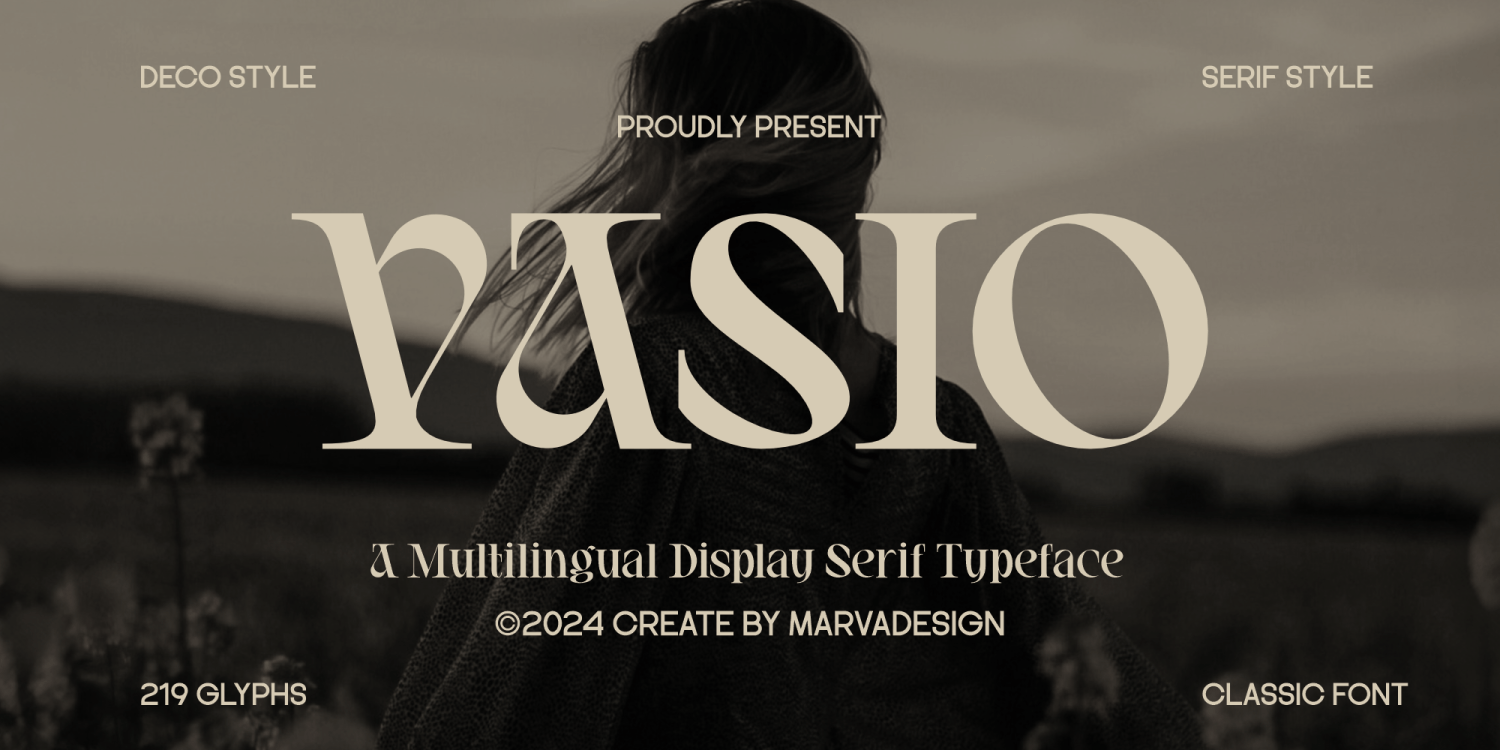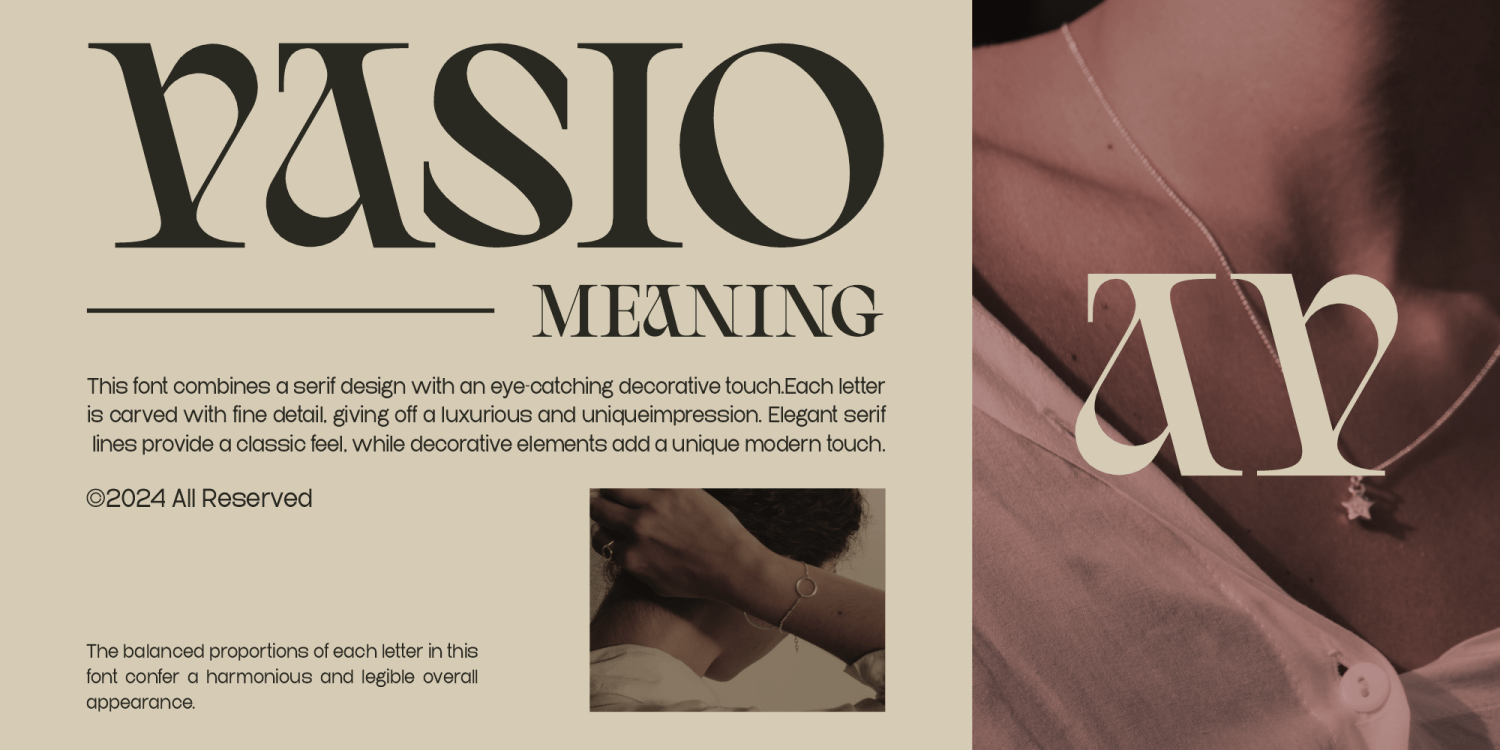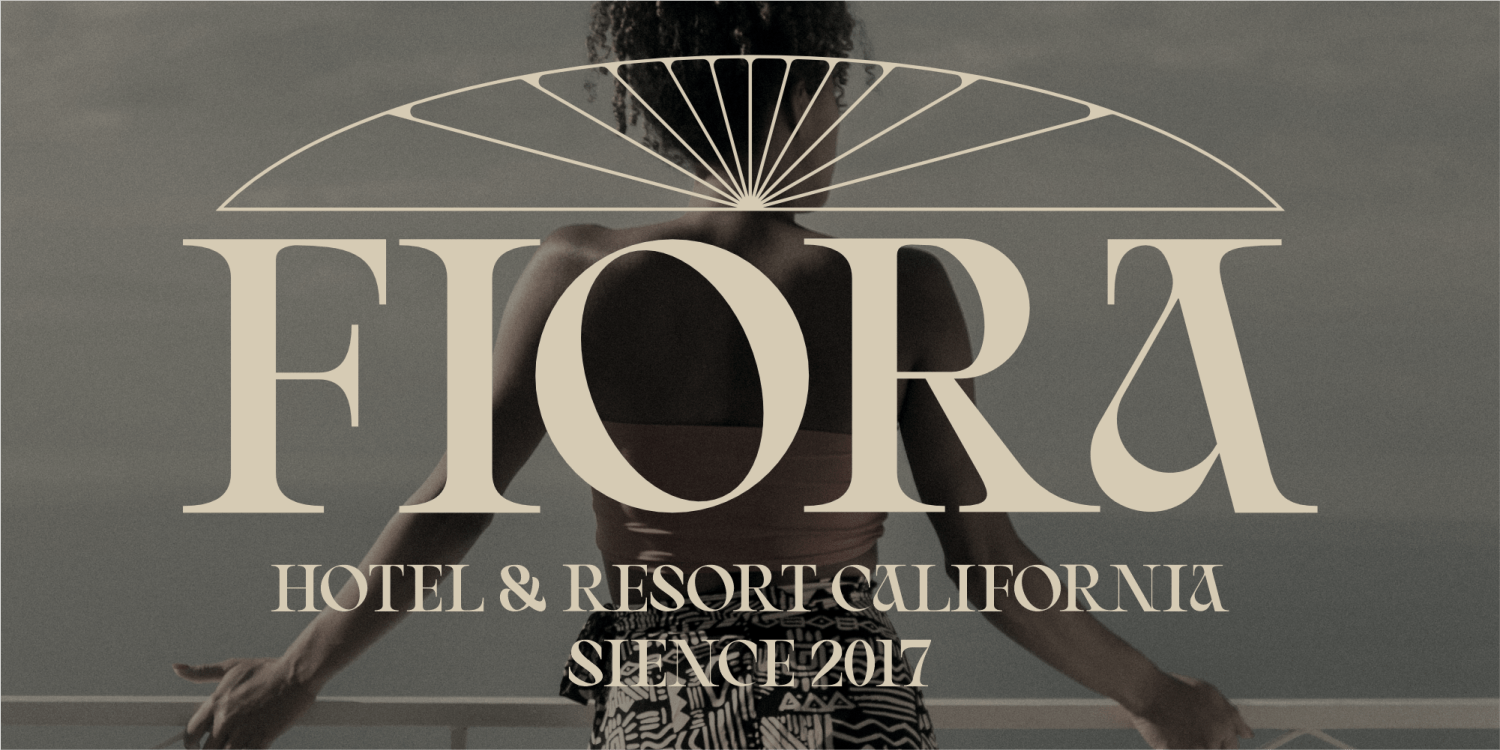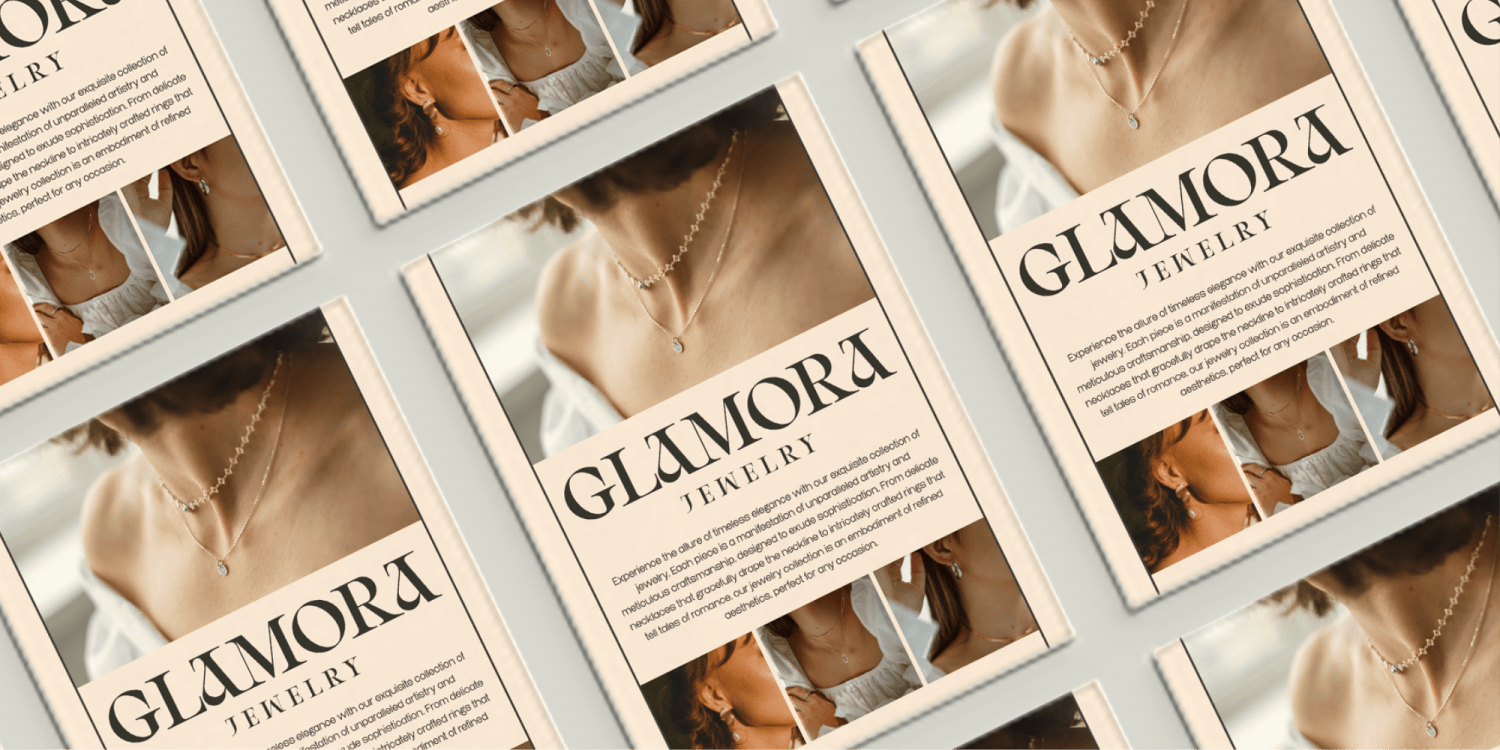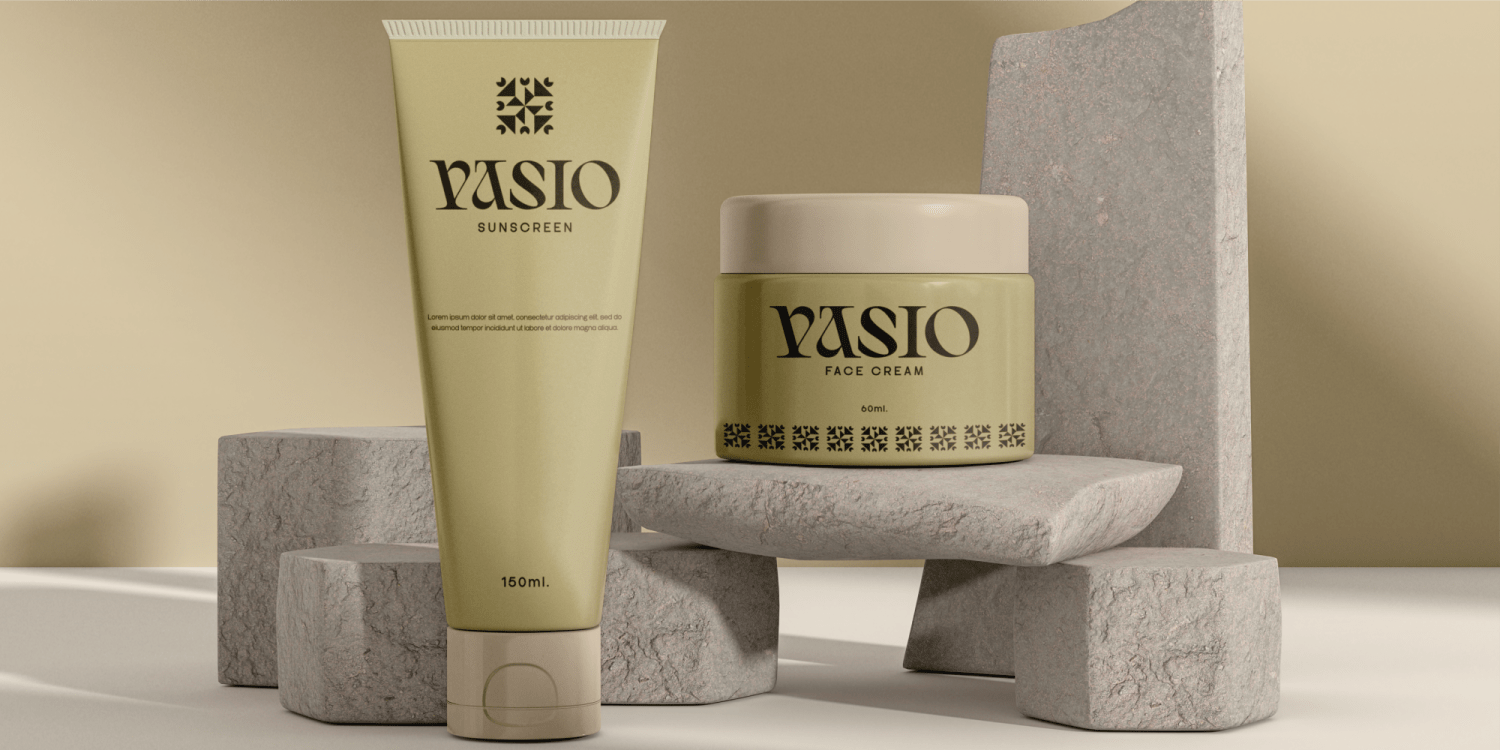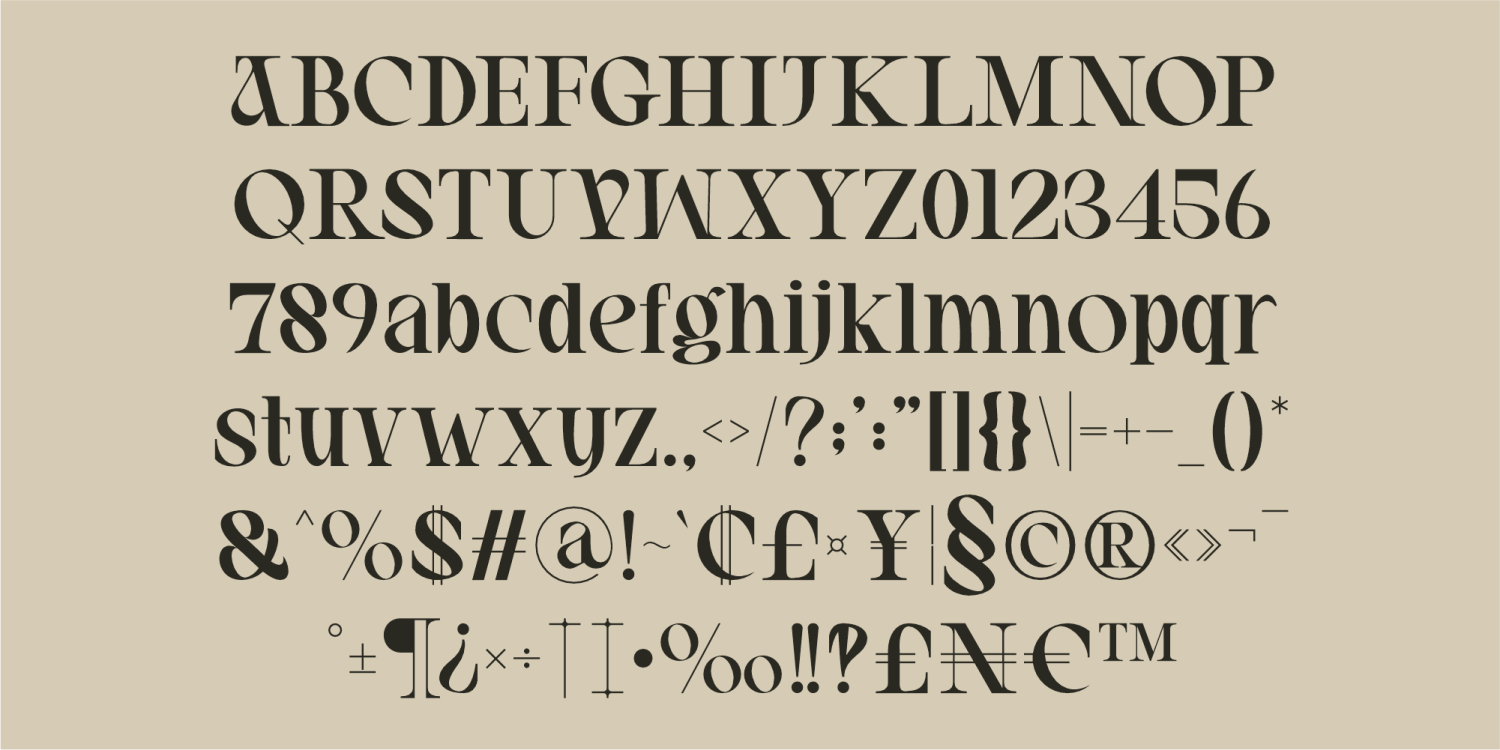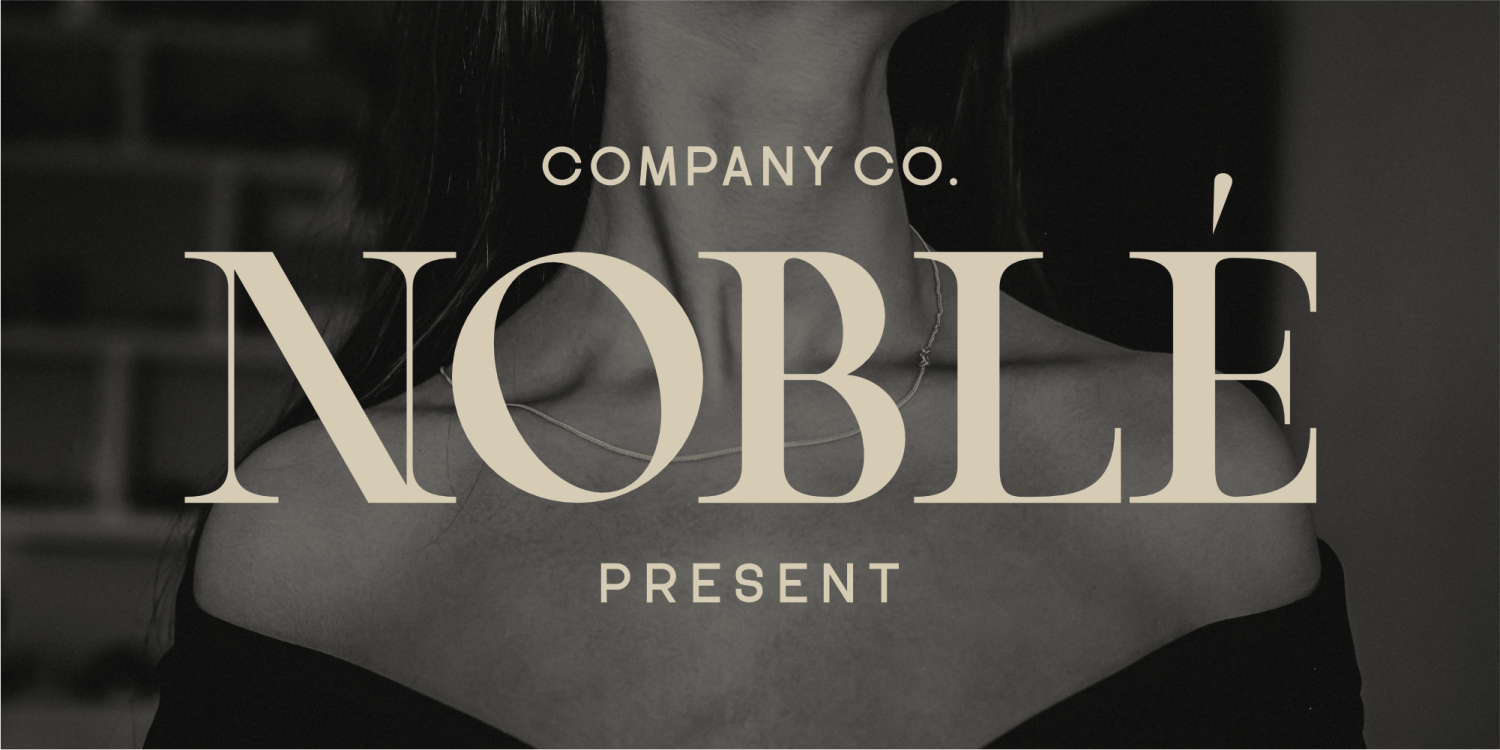
Vasio
Font Family by Marvadesign
Introducing Vasio is a sophisticated display serif typeface that blends classic elegance with contemporary artistic flair. Designed with intricate detailing, each letter showcases a refined balance of traditional serif elements and striking decorative accents, making it an ideal choice for luxury branding, editorial designs, and high-end visual identities.
This font exudes a timeless yet modern aesthetic, characterized by smooth curves, sharp angles, and distinctive letterforms that enhance readability while maintaining an artistic edge. Its deco-inspired style adds a touch of sophistication, reminiscent of vintage typography yet adapted for contemporary use.
With 219 meticulously crafted glyphs, Vasio supports multilingual typography, ensuring versatility for diverse design applications. The font’s structured proportions provide a harmonious and legible appearance, making it suitable for headlines, logos, packaging, and fashion-related materials.
Overall, Vasio embodies a perfect fusion of elegance, creativity, and functionality, catering to designers seeking a refined and expressive typographic solution.